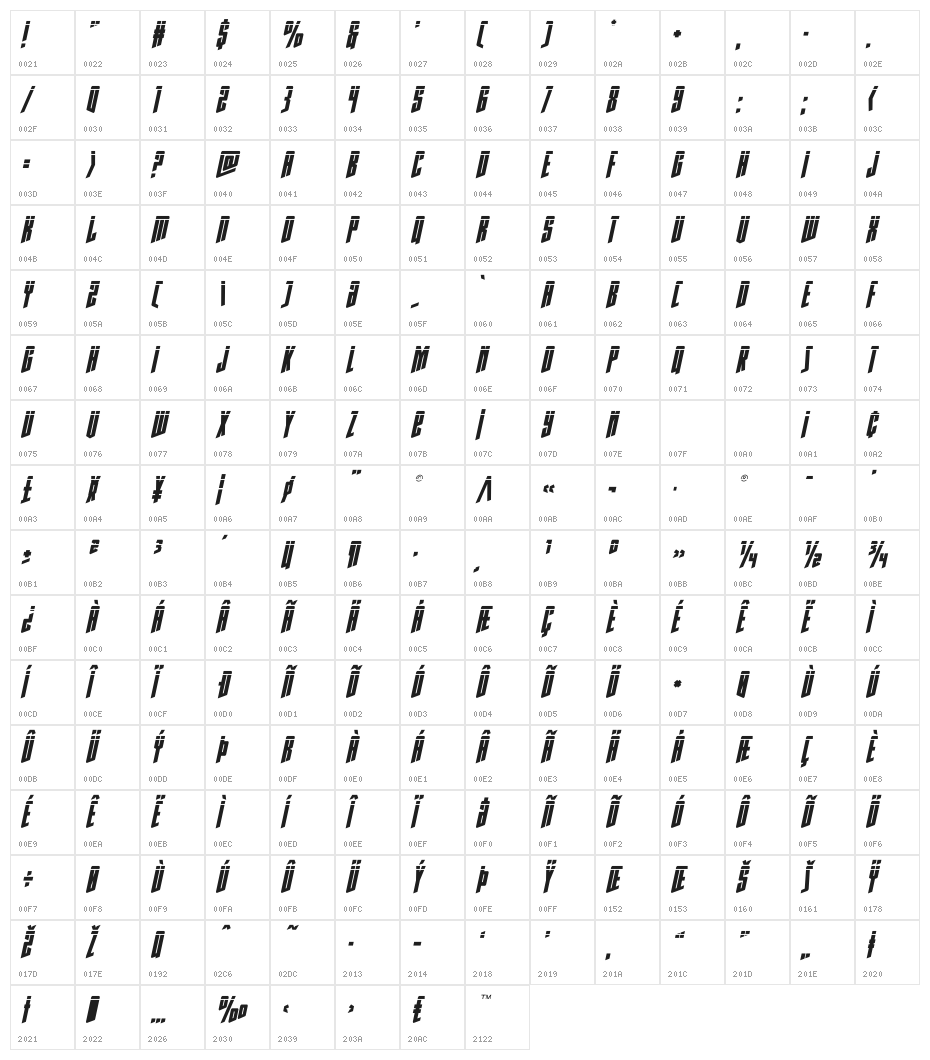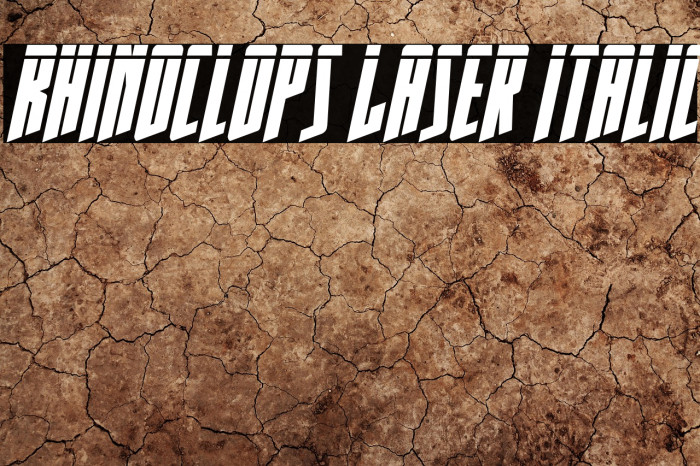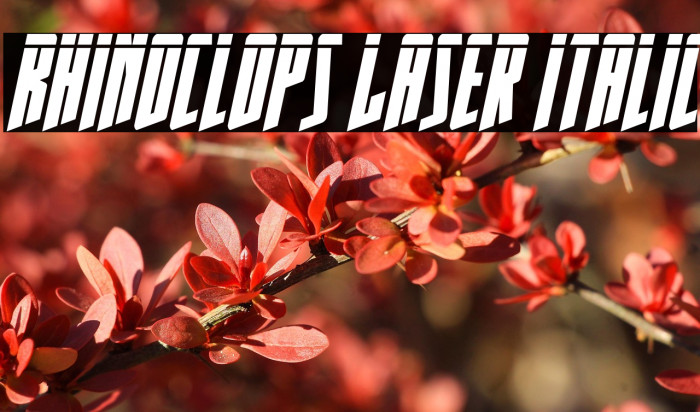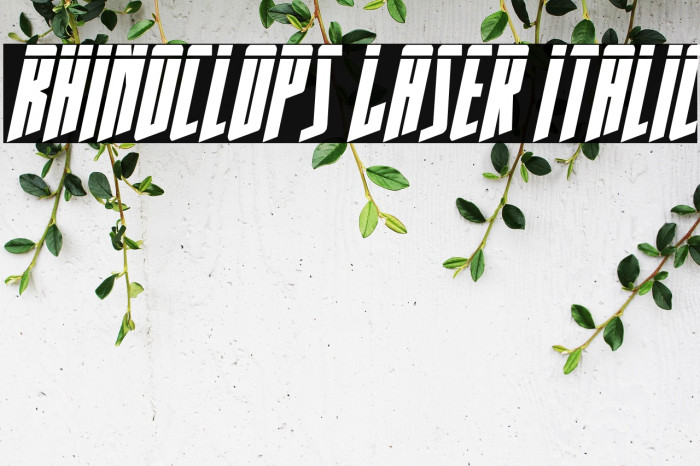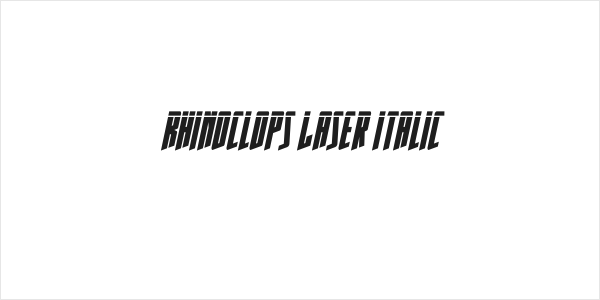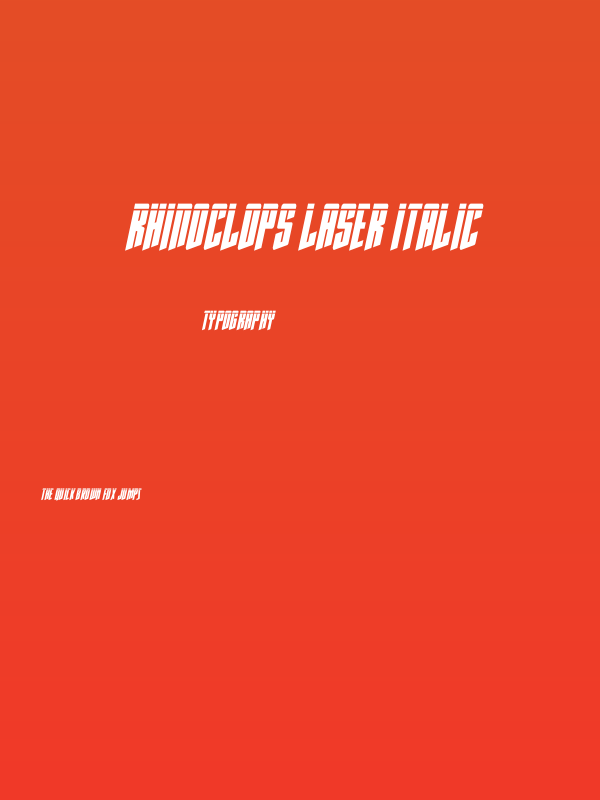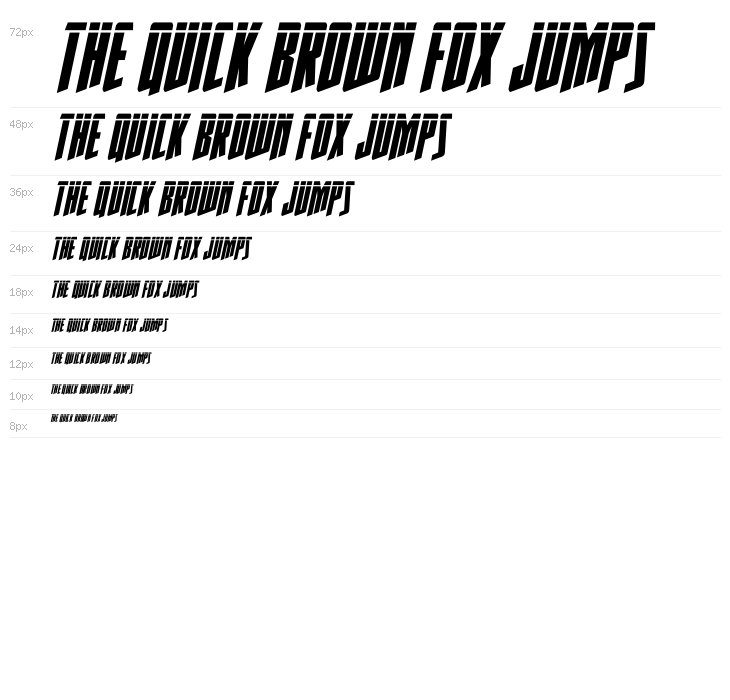
Rhinoclops Laser Italic Font
Rhinoclops Laser Italic Description
This font features a bold, futuristic design with sharp, angular edges and a distinct italic slant. The characters are tightly spaced, creating a dynamic and energetic appearance. The uppercase and lowercase letters maintain a consistent style, emphasizing a sleek, modern aesthetic. The numerals and special characters are designed with the same angular precision, making them stand out. This font is ideal for projects that require a strong, impactful visual presence, such as branding, advertising, or digital media.
| Proposed Projects | Ideal for branding, advertising, digital media, and any project needing a strong visual impact. |